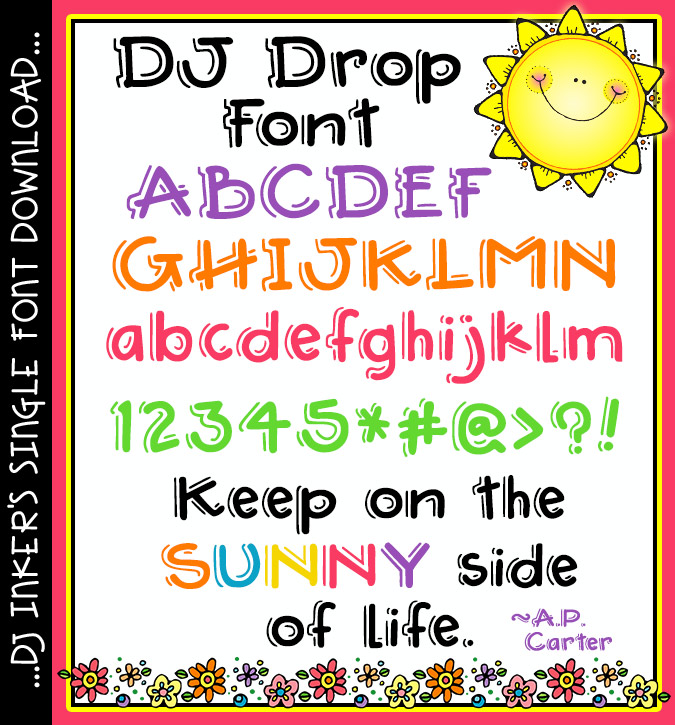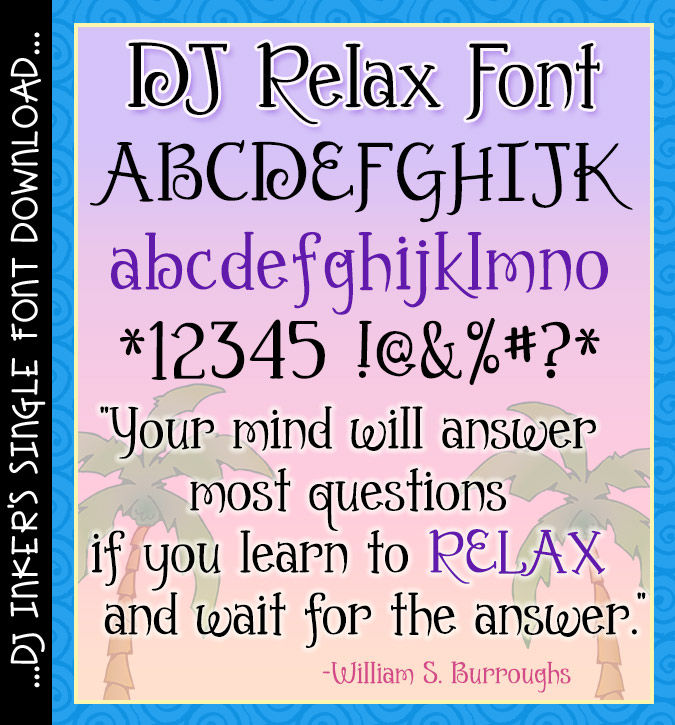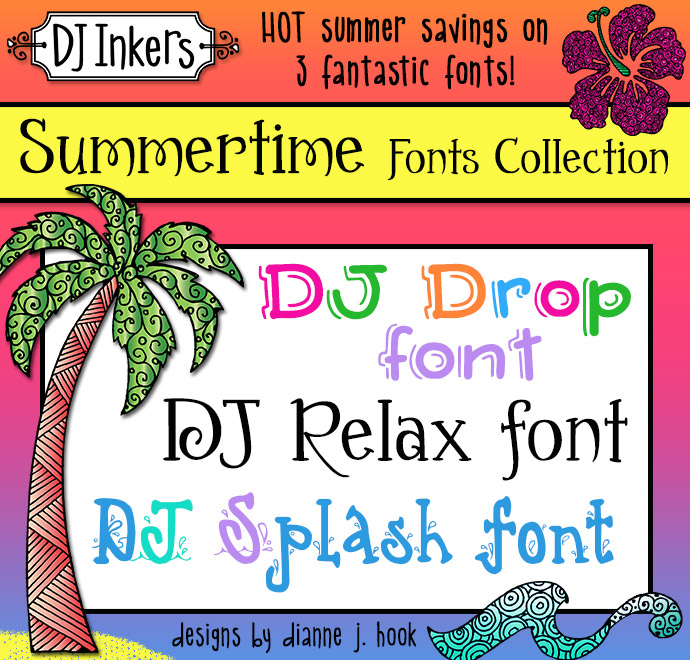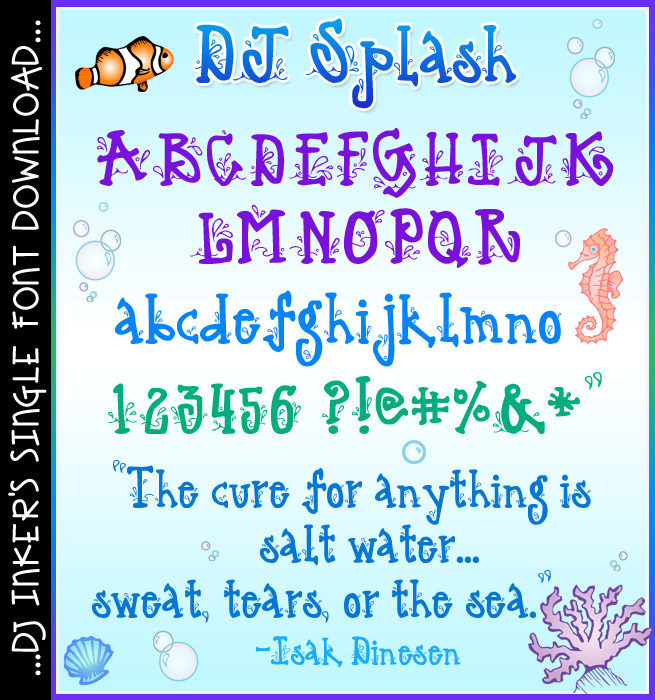
DJ Summertime Fonts Collection - 3 Fonts for Summer
Ahhh... summertime!  If you've got creative projects planned for your summer, splash into savings with our Summertime Fonts Collection! This HOT font collection comes with 3 fabulous fonts to keep you smiling all summer long:  DJ Drop, DJ Relax and DJ Splash.  Also sold separately, but this set saves you a bundle!